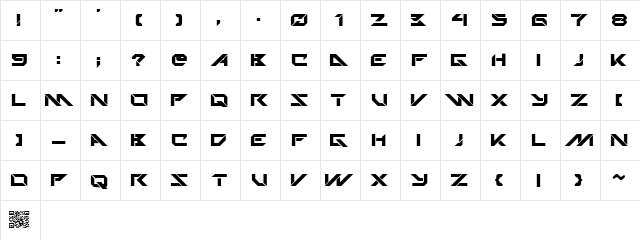
Techno Hideo Bold
Design Context for Techno Hideo Typeface
Techno Hideo channels digital-age aesthetics through its sharp, structured letterforms — ideal for brands that want to signal innovation. The heavy weight commands attention and anchors typographic hierarchies.
Pro Tip: Use Techno Hideo in combination with a neutral sans for body text. Let it define the brand voice in headlines while keeping reading comfortable elsewhere.